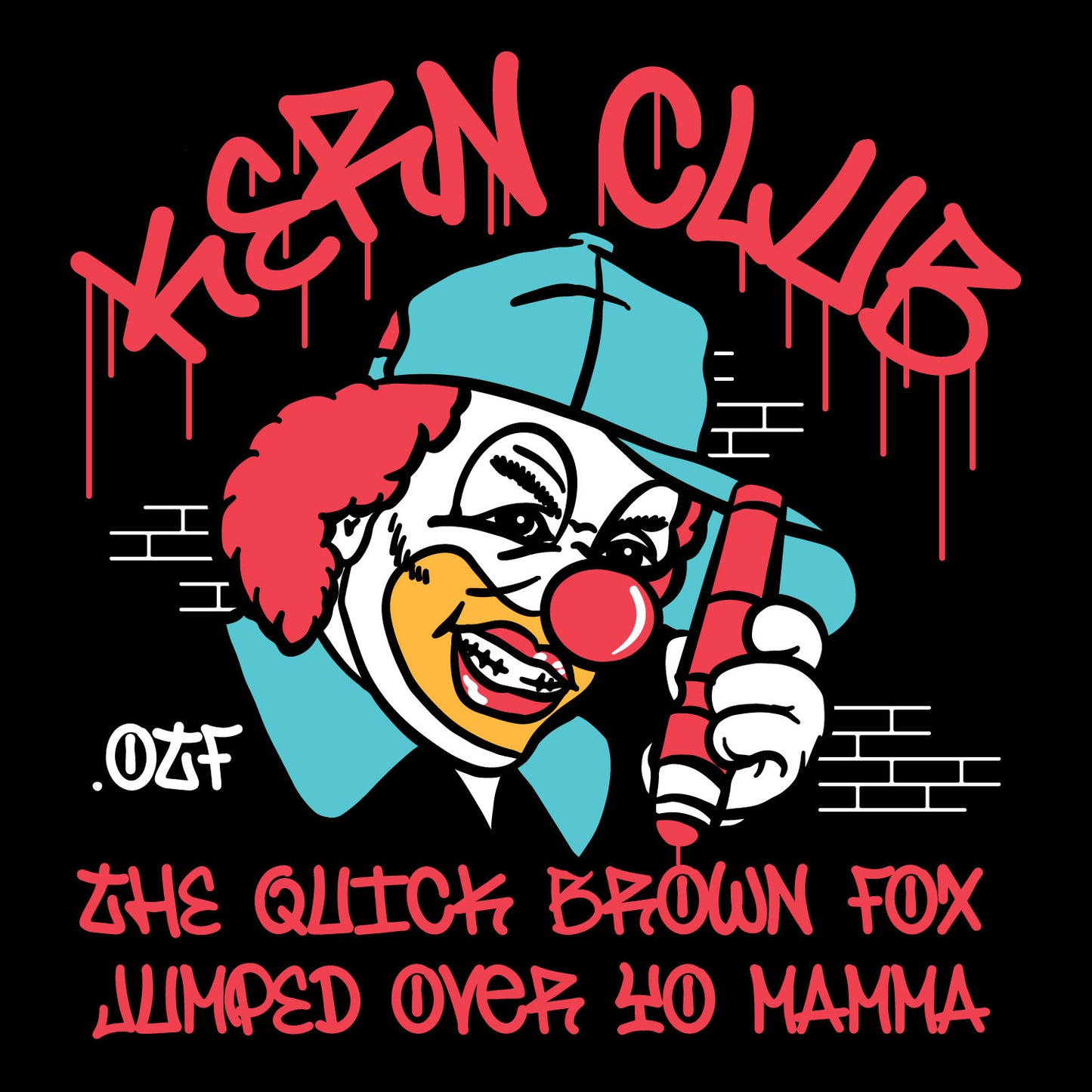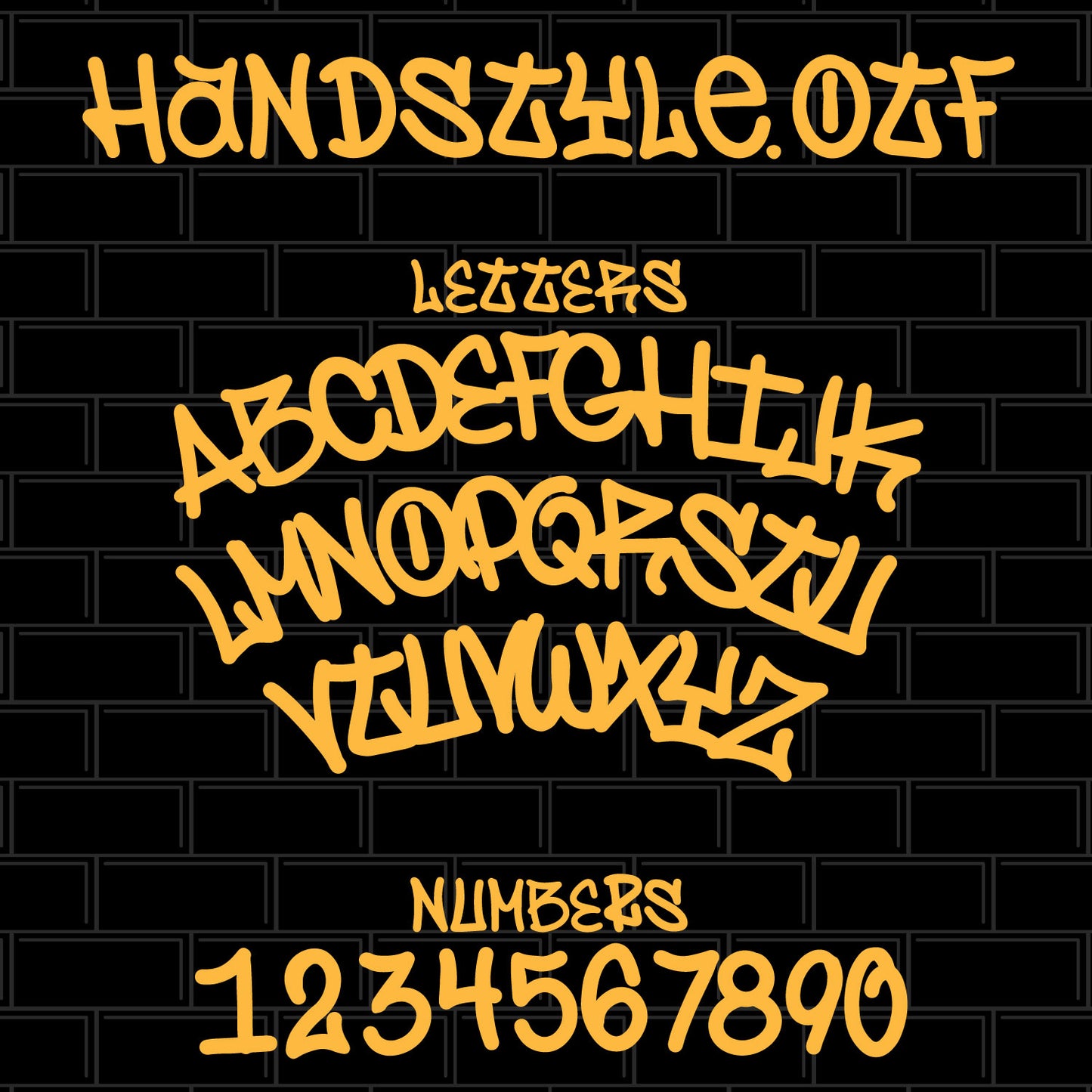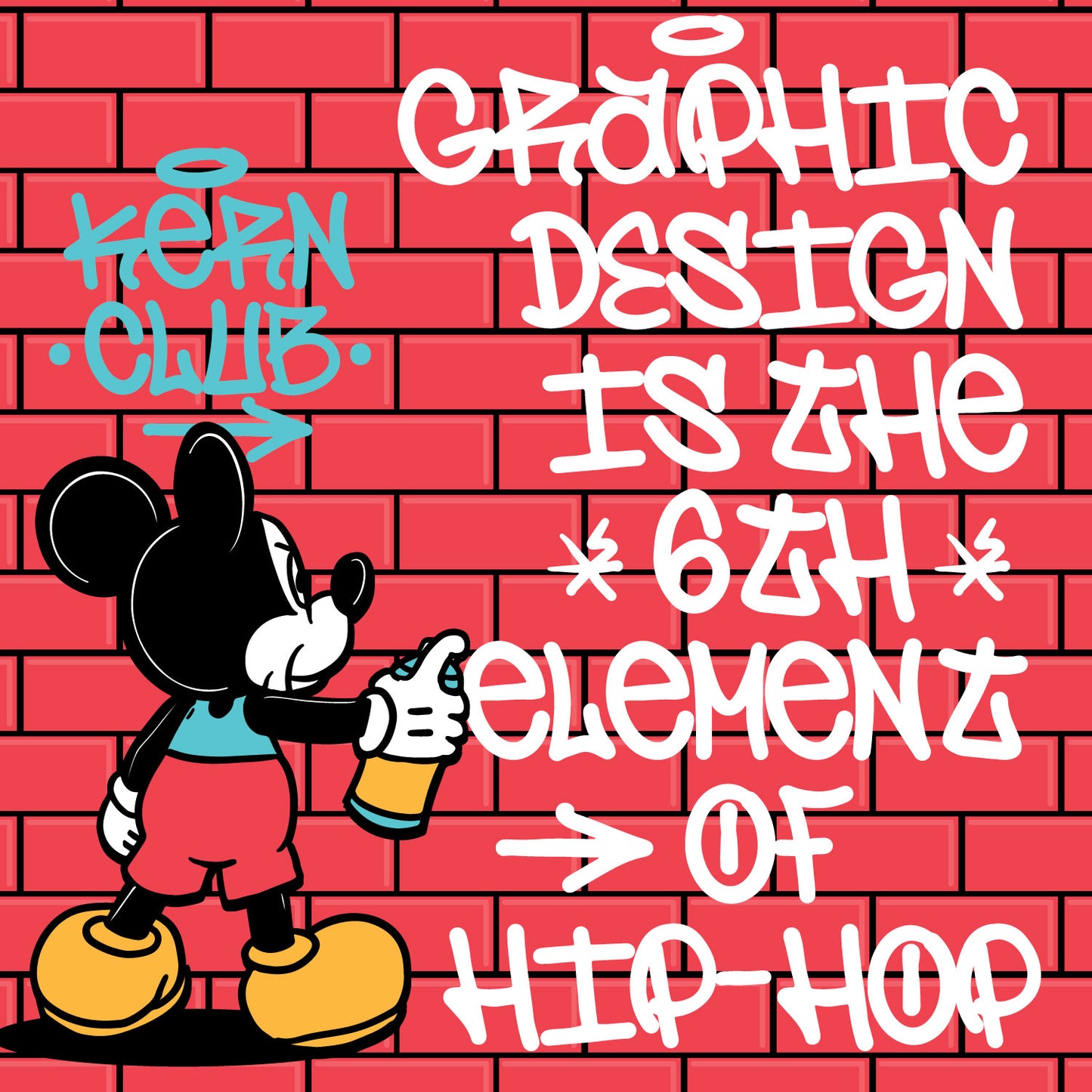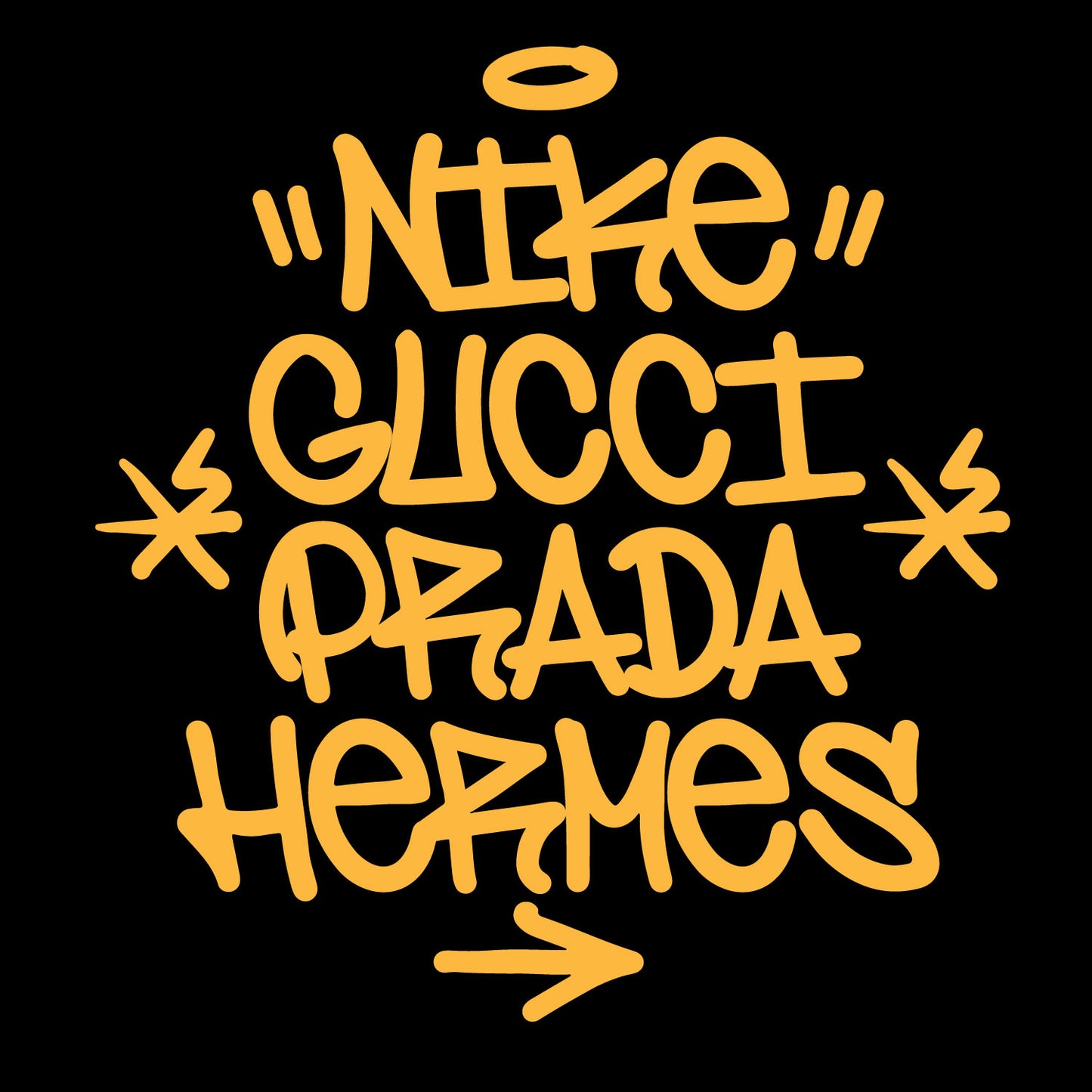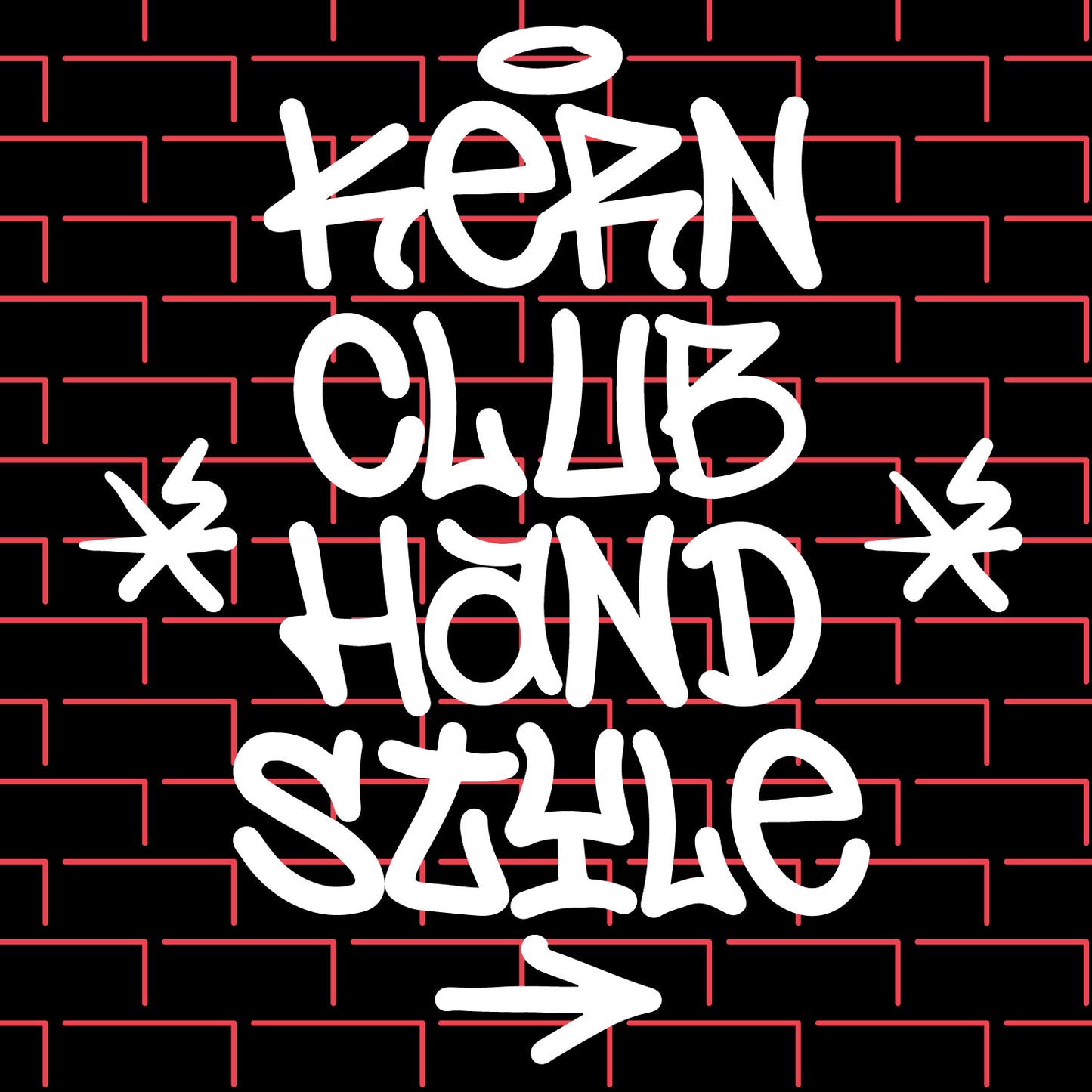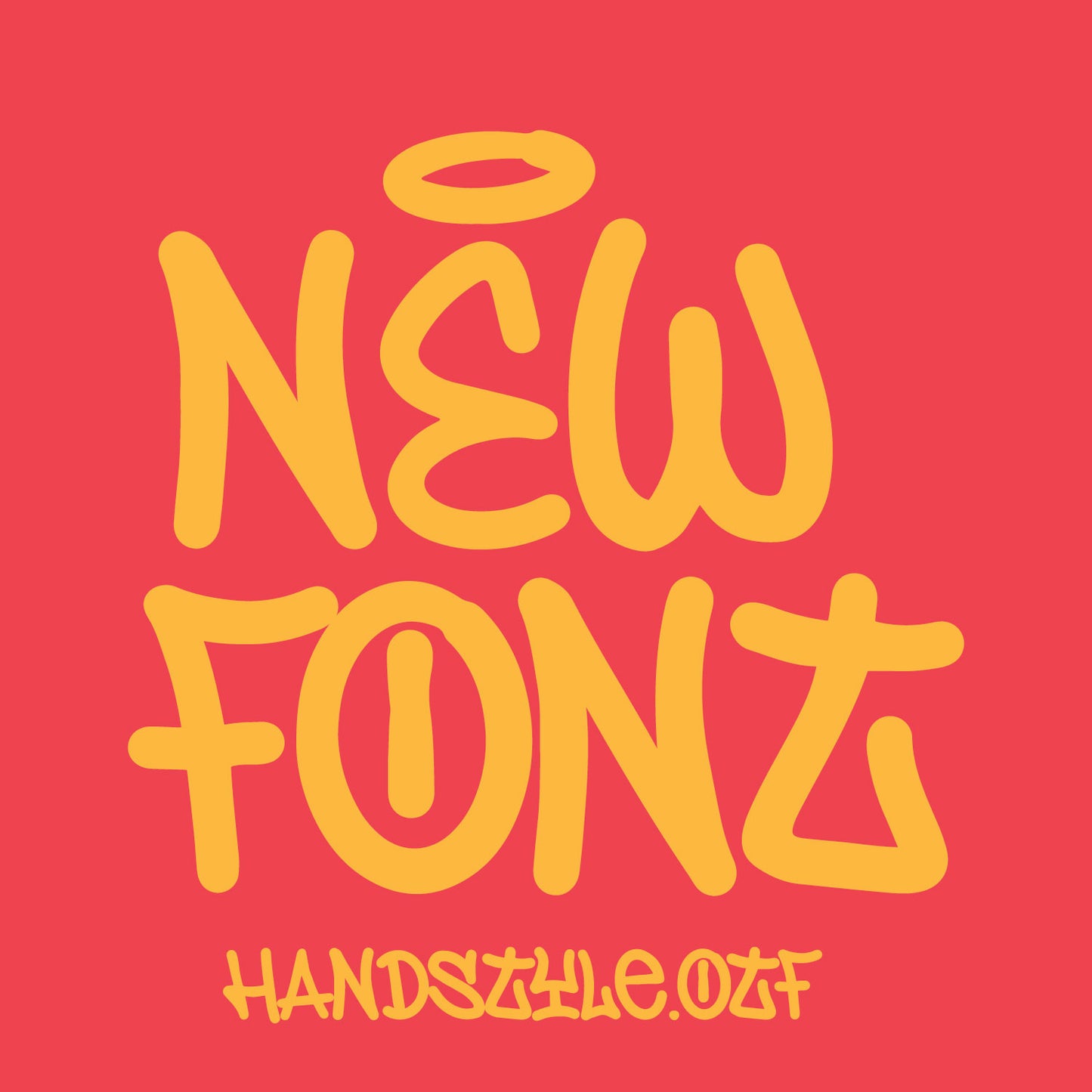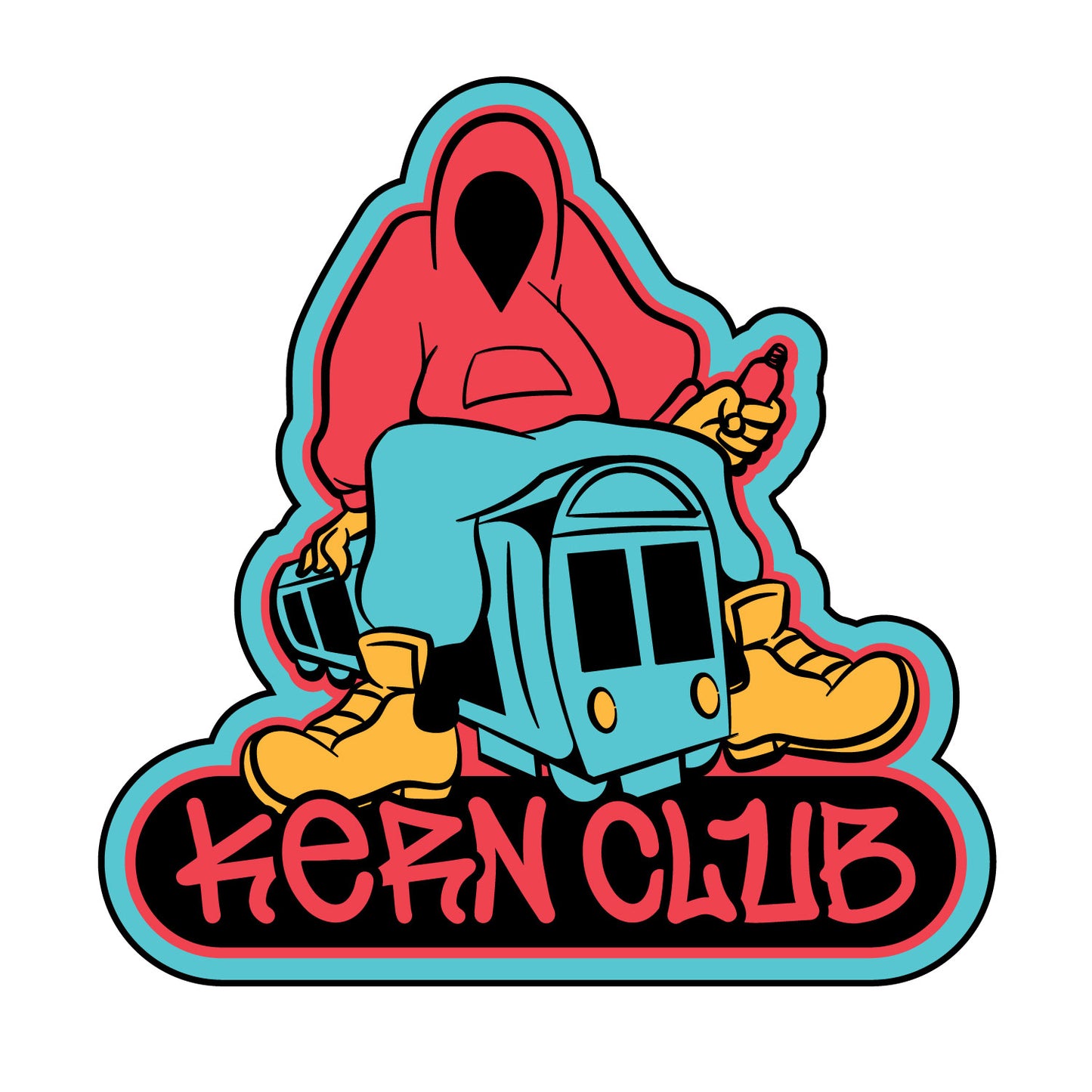
Handstyle Font
Introducing Kern Club Handstyle.otf a graffiti font that breaks the mold. Crafted by a highly skilled tagger who prefers to remain anonymous (because, hey, the streets have their own code). Each letter in this font is damn right filthy. Its a piece of font history, ready to be used by.... YOU!